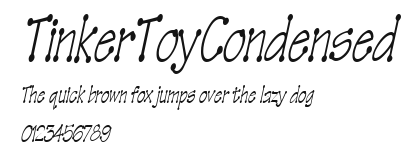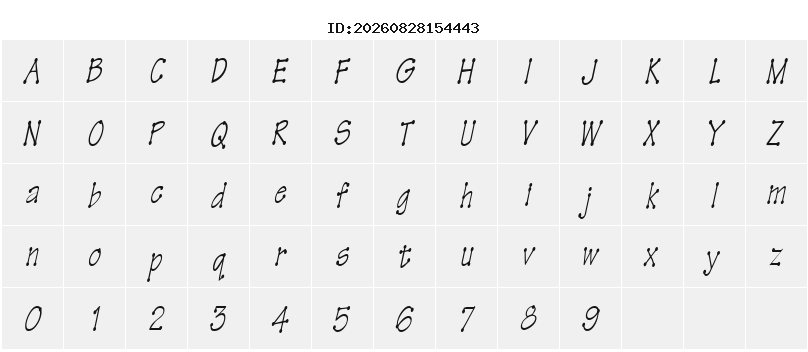
TinkerToyCondensed Preview
• Font Name: TinkerToyCondensed
• Font Style: Oblique
• Full Font Name: TinkerToyCondensed Oblique
About TinkerToyCondensed.ttf
TinkerToyCondensed.ttf is a modern, elegant sans-serif font designed for ultimate readability and visual harmony. Perfect for branding, headlines, web design, and print materials.